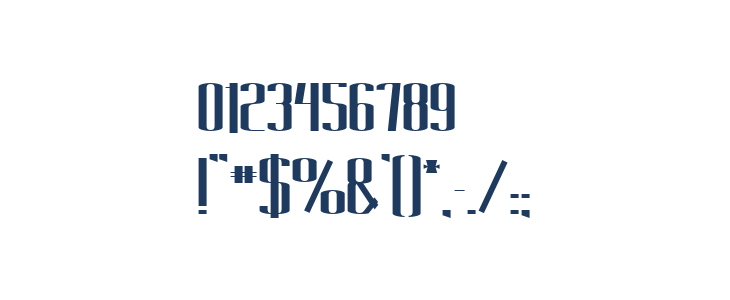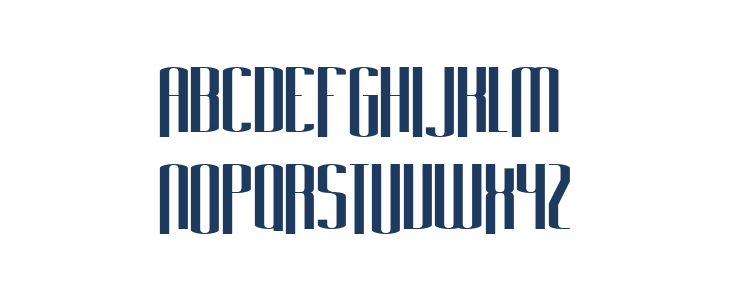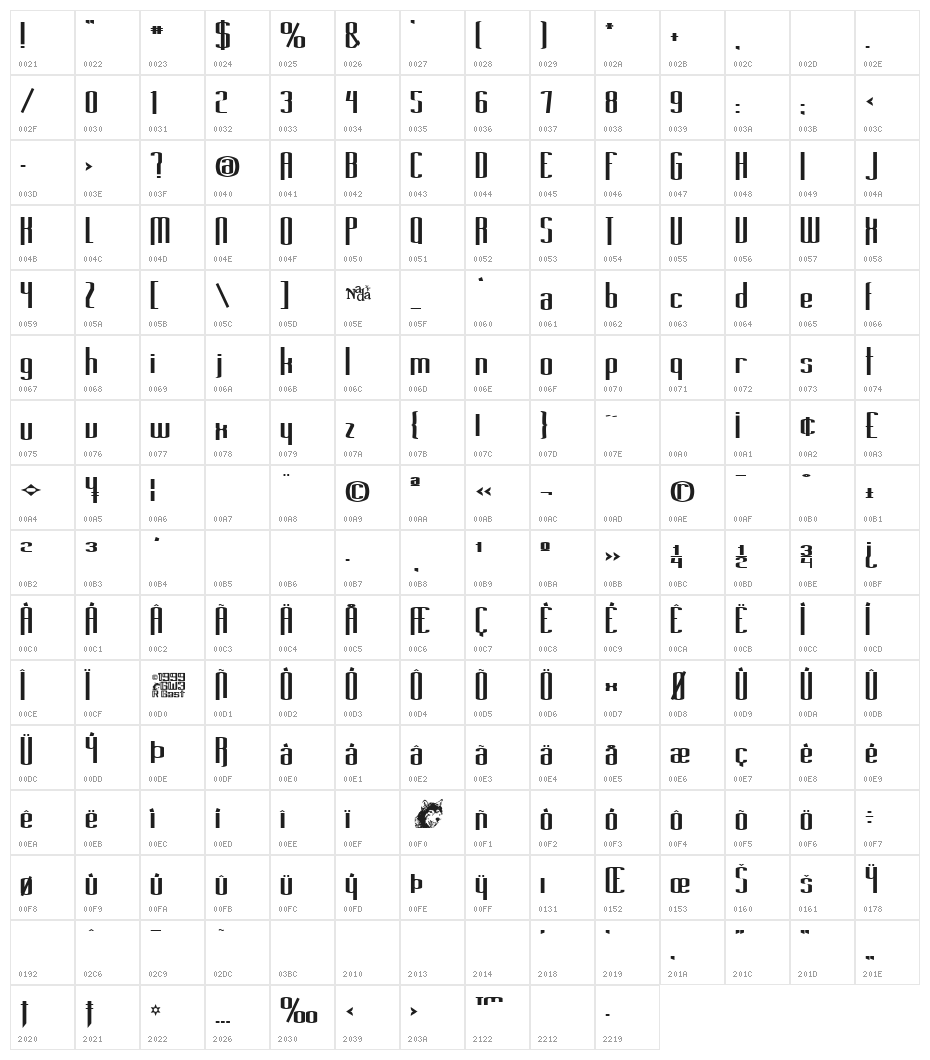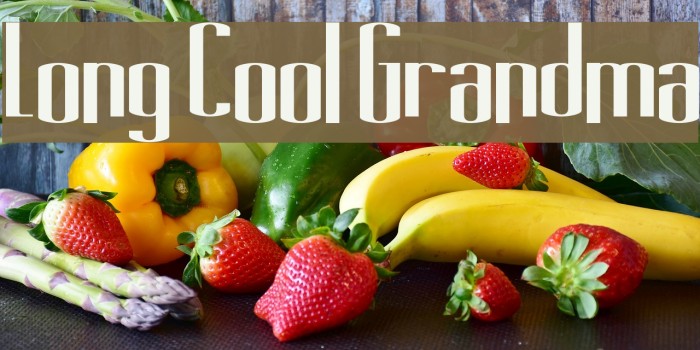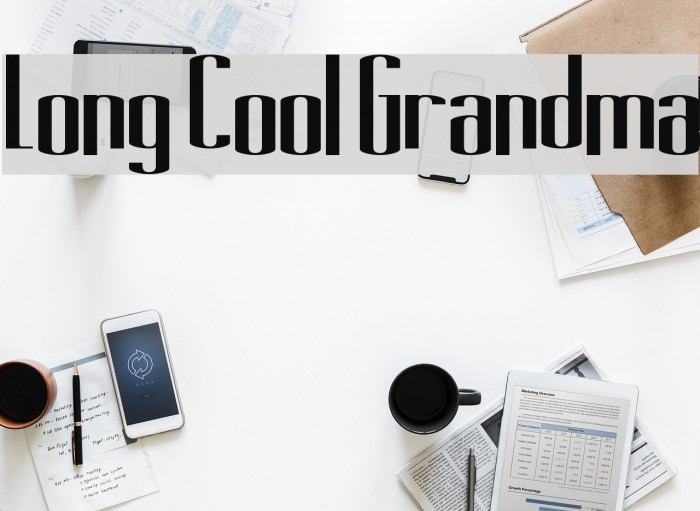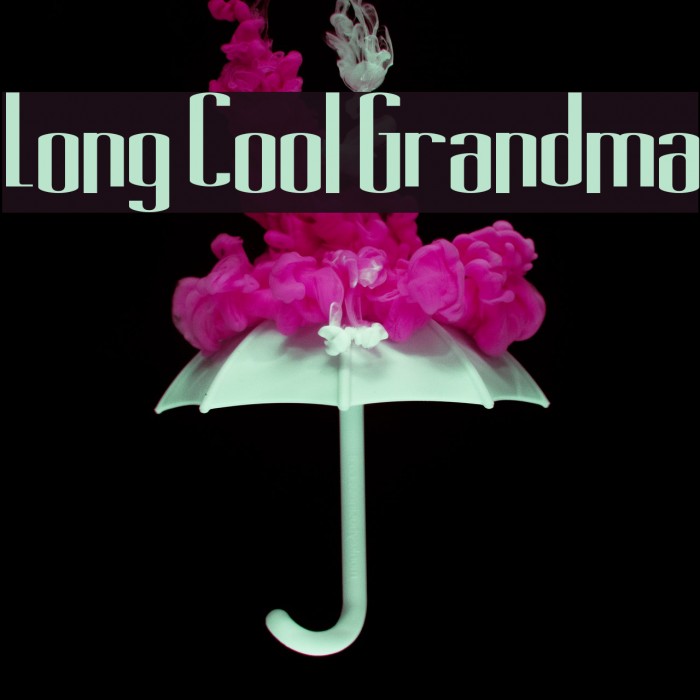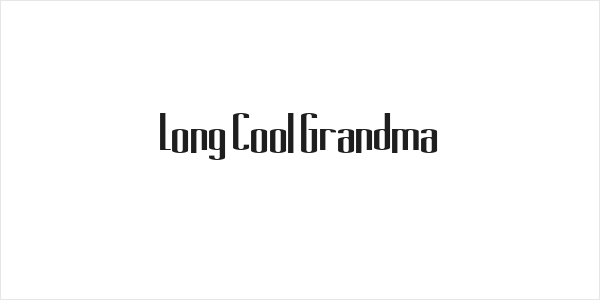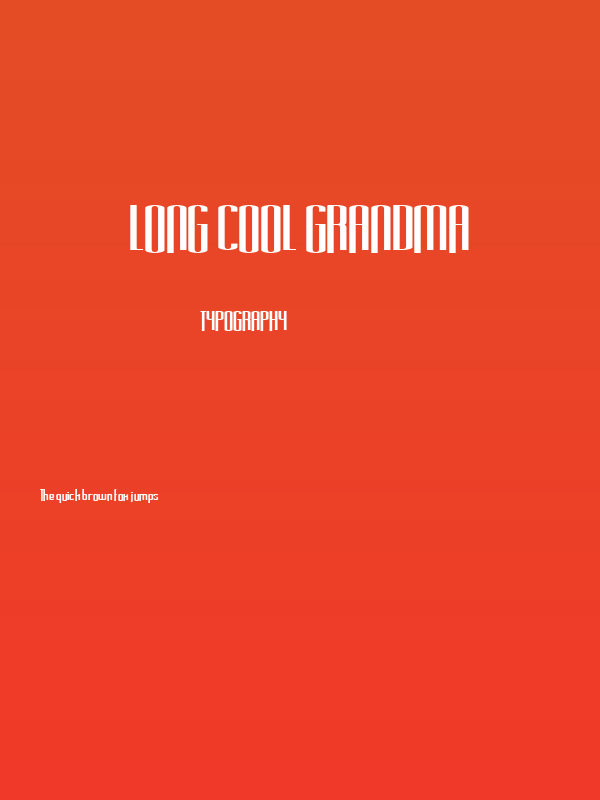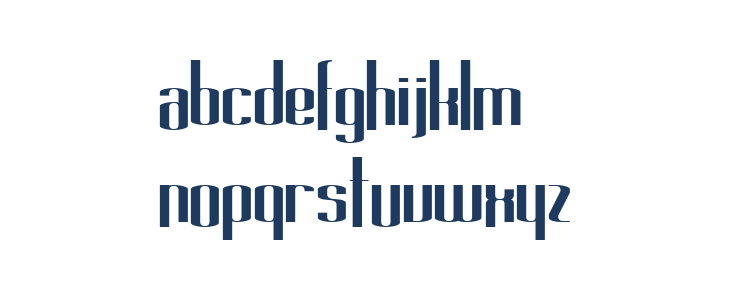
Long Cool Grandma Font
Long Cool Grandma Description
This font features a bold and elongated design with a modern and decorative flair. The characters are tall and narrow, giving a condensed appearance that is both striking and stylish. The uppercase letters have a strong vertical emphasis, while the lowercase letters maintain a consistent height, creating a harmonious balance. The numerals and special characters follow the same aesthetic, ensuring uniformity across all glyphs. This font's unique style makes it ideal for eye-catching designs where a bold statement is needed.
| Proposed Projects | Ideal for posters, logos, headlines, and branding materials that require a bold and modern look. |